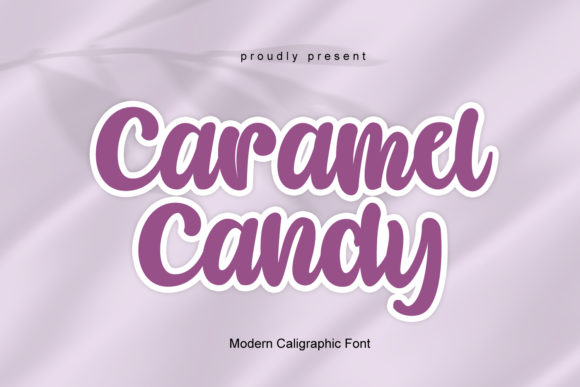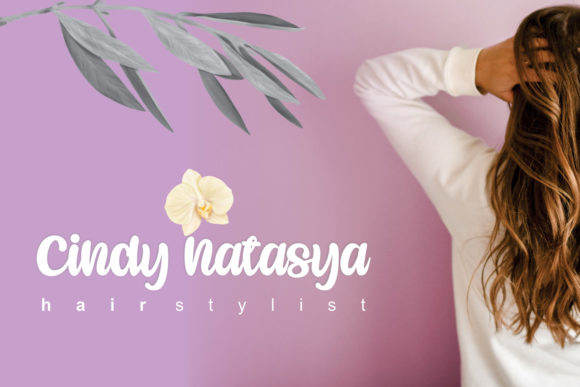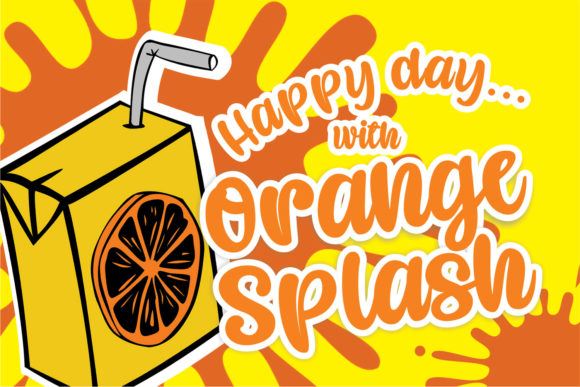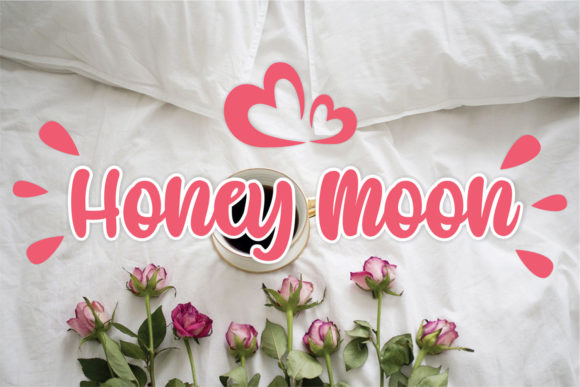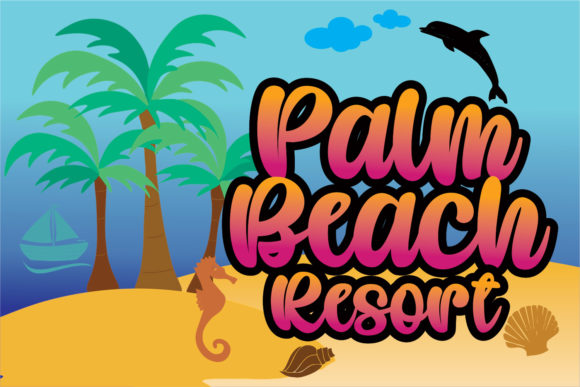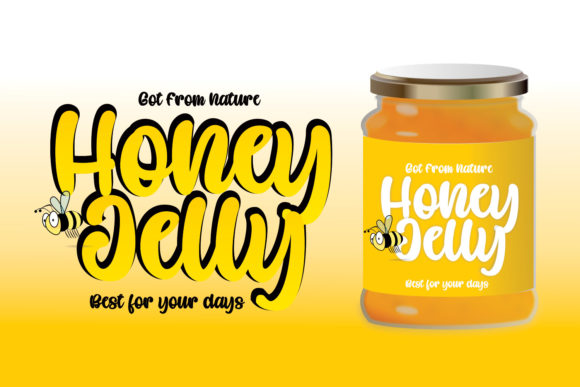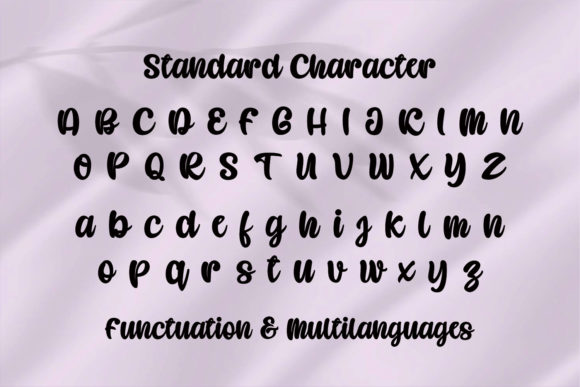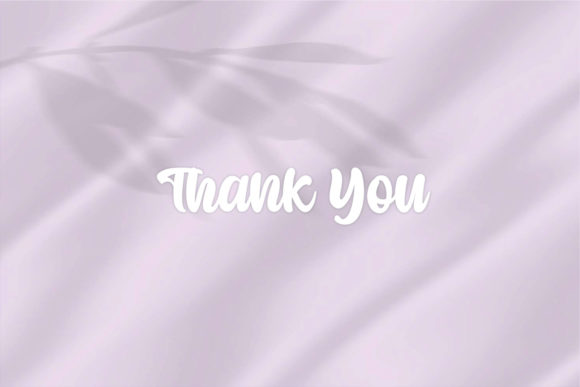
Caramel Candy Font
About Caramel Candy Font
Introducing “Caramel Candy,” a delightful and flowing handwritten font that exudes an elegant touch, perfect for all your favorite design projects. This font’s unique and timeless style is sure to captivate your heart, making it an ideal choice to add a touch of sophistication to your creative endeavors.
With its smooth and graceful strokes, “Caramel Candy” brings a sense of fluidity and charm to your designs. Each letter is carefully crafted to maintain its distinct personality, creating a harmonious and visually appealing flow of characters. Whether used for wedding invitations, thank you cards, quotes, greeting cards, logos, business cards, or any other project that requires a handwritten touch, “Caramel Candy” will leave a lasting impression on your audience.
For wedding invitations, “Caramel Candy” sets the perfect tone for a celebration filled with sweetness and joy. Its flowing and elegant letters convey a sense of warmth and intimacy, making each invitation feel personal and heartfelt. Your guests will be enchanted by the beauty of “Caramel Candy,” and your wedding invitations will become cherished mementos of your special day.
Thank you cards adorned with “Caramel Candy” become tokens of appreciation that are both graceful and stylish. The font’s elegant touch elevates your words, making your expressions of gratitude even more meaningful and heartfelt. Whether it’s a note of thanks to friends, family, or clients, “Caramel Candy” adds a touch of sophistication and charm to your messages.
In quotes and greeting cards, “Caramel Candy” infuses your words with a sense of artistry and beauty. Its timeless style and distinct flair make your messages stand out, leaving a lasting impact on the reader. Whether you’re crafting motivational quotes or heartfelt sentiments, “Caramel Candy” enhances the emotional impact of your words and makes them truly memorable.
When it comes to branding and logos, “Caramel Candy” adds a touch of elegance and refinement. Its flowing and distinct style creates a sense of artistry and craftsmanship that resonates with your target audience. Whether you’re designing for fashion, beauty, lifestyle, or any other industry, “Caramel Candy” becomes a signature element that leaves a lasting impression on your brand identity.
As a designer, “Caramel Candy” becomes a valuable asset in your creative toolkit. Its versatility and timeless appeal make it suitable for a wide range of projects, from social media graphics and website designs to product packaging and promotional materials. With “Caramel Candy” at your disposal, you can bring your creative visions to life in a captivating and sophisticated manner.
So, fall in love with the flowing elegance of “Caramel Candy” and let it add a touch of sweetness and charm to all your design projects. This handwritten font is truly distinct and timeless, making it an excellent choice to create spectacular and captivating designs. Embrace the elegance and grace of “Caramel Candy” and watch as it transforms your creative ideas into works of art that leave a lasting impression on everyone who sees them.